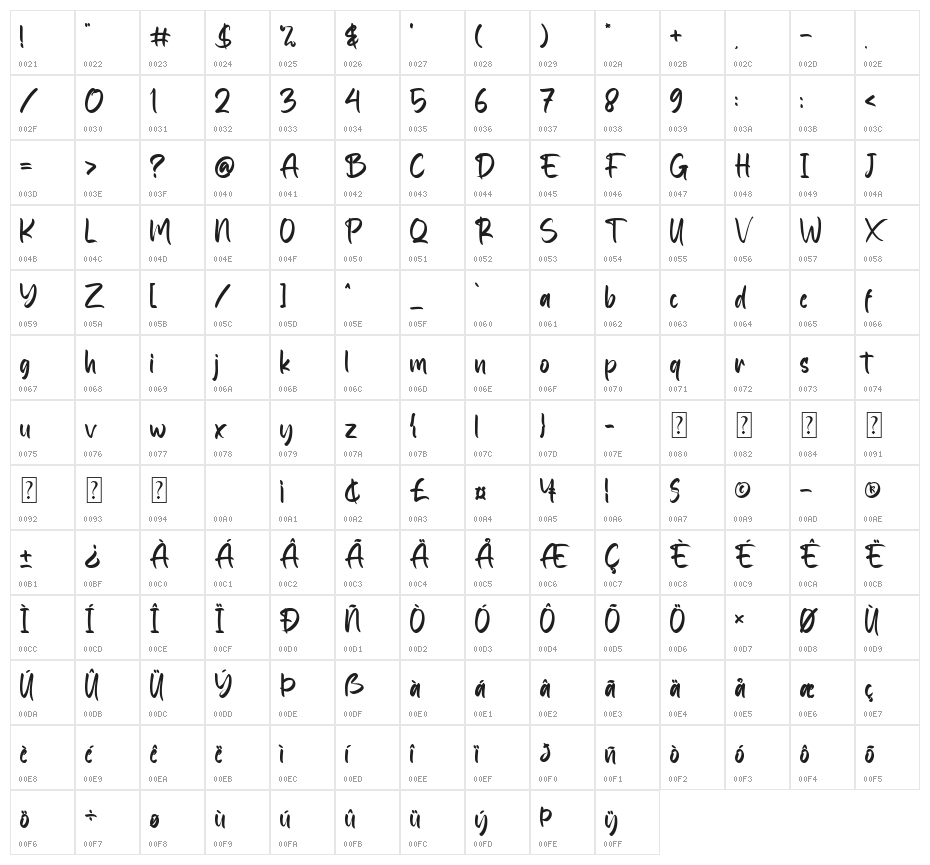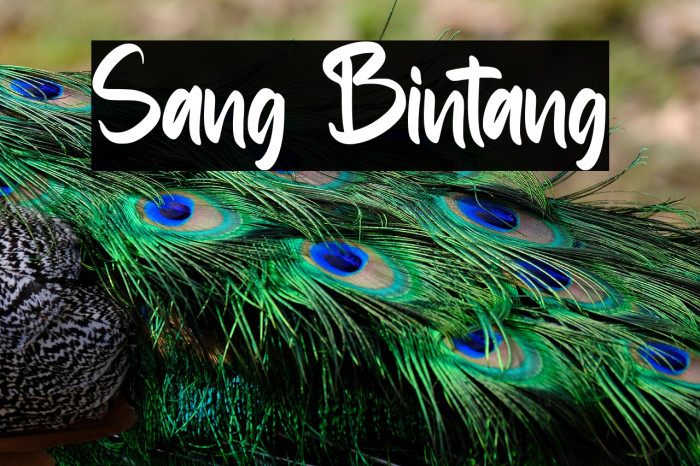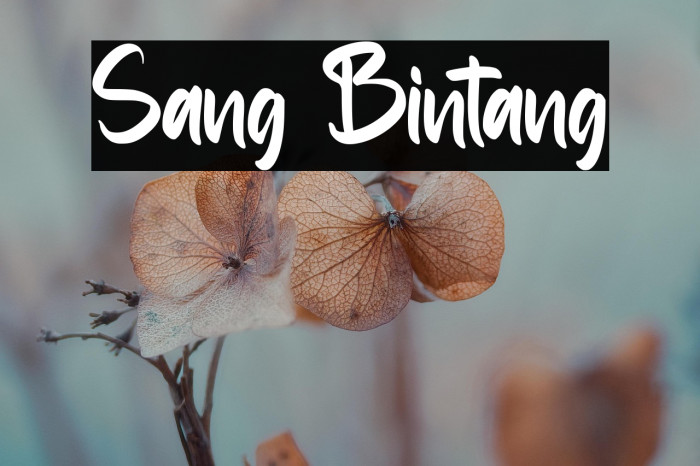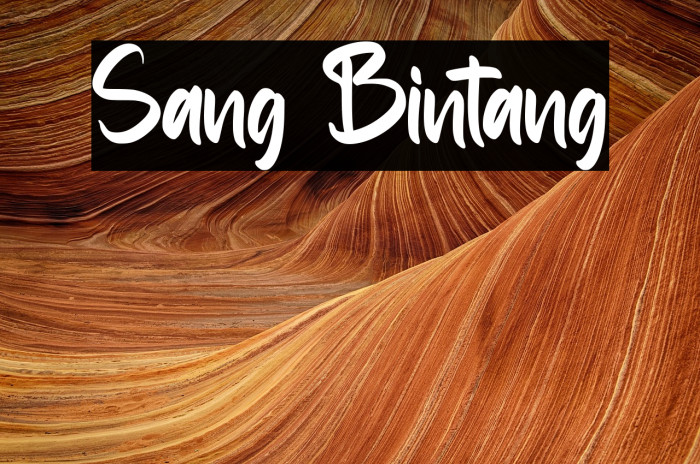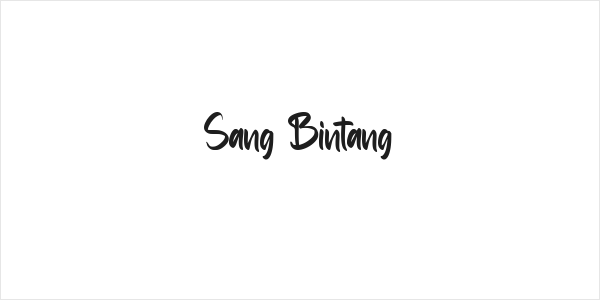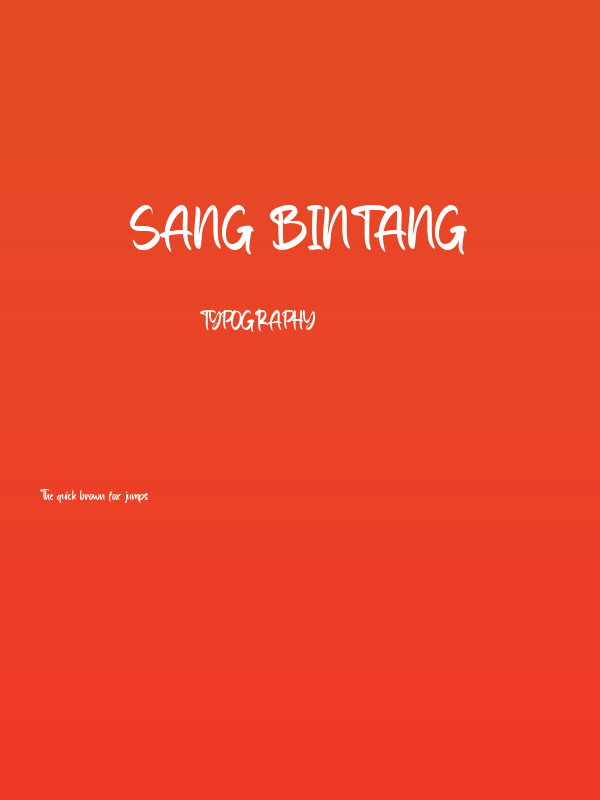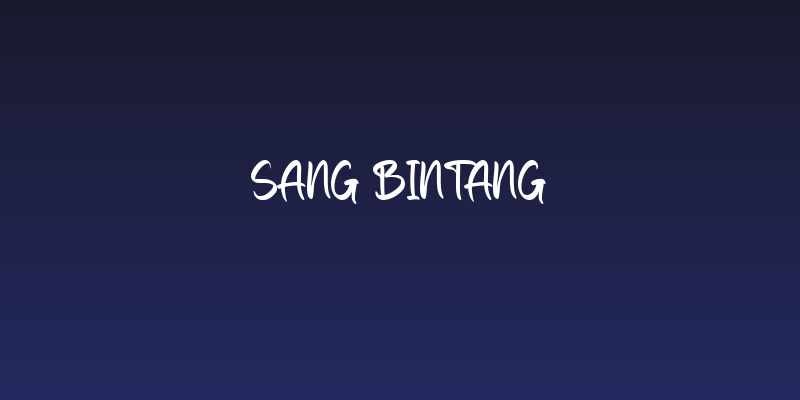
Sang Bintang Font
Sang Bintang Description
This font exudes a playful and energetic vibe with its bold, handwritten style. The characters are slightly slanted, giving a dynamic and informal appearance. The strokes are thick and consistent, providing a strong visual impact. The uppercase and lowercase letters maintain a cohesive look, while the numerals and special characters complement the overall design. This font is ideal for projects that require a personal touch, such as invitations, greeting cards, or creative branding.
| Proposed Projects | Ideal for invitations, greeting cards, creative branding, and playful designs. |